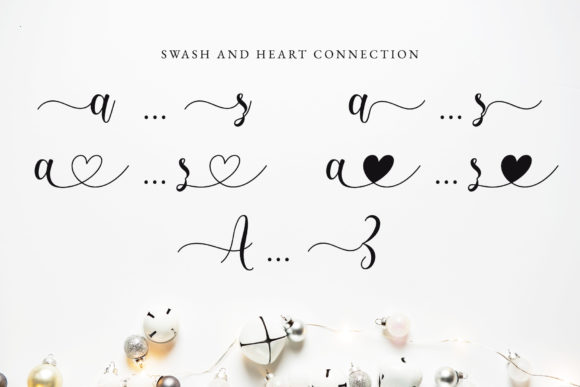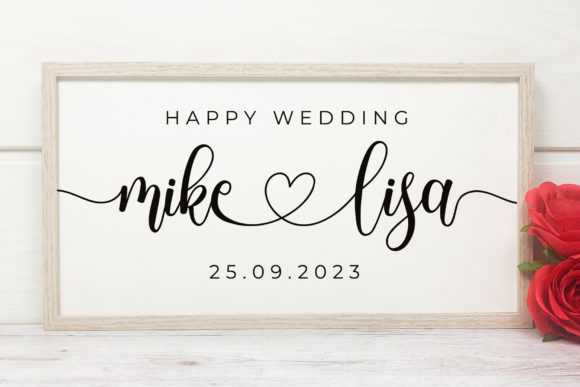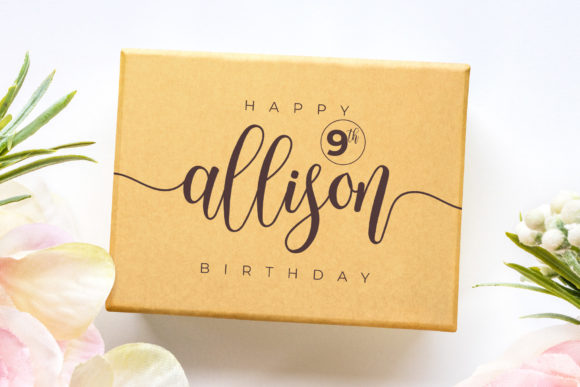
About Penthouse Font
Penthouse is a bouncy, thin, and cute script font. This typeface is sweet and elegant at the same time.
Penthouse has beautiful swashes, and it also has heart/love connection glyphs to give a more lovely touch to your design.
Penthouse is beautiful script font for any elegant project such as wedding invitation, branding, logo, label, crafting, farmhouse, and others.